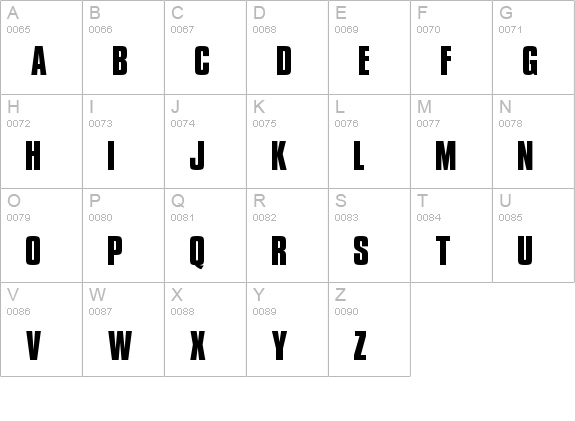
Compacta ICG Bold Font Details
Compacta ICG Bold is a strong, high-contrast variant in the Compacta typeface family \xE2\x80\x94 well suited to headlines, attention-grabbing titles, and strong calls-to-action.
Compacta ICG Bold font is a striking and modern typeface that exudes confidence and strength. Its bold and sturdy letterforms make it perfect for headlines, titles, and other attention-grabbing text. The font's compact design and sharp lines give it a contemporary and edgy feel, making it a popular choice for projects that require a bold statement. The best part about Compacta ICG Bold font is that it is available for free download at FontsMarket.com. This means you can easily access this powerful font and use it in your designs without any cost. Whether you're working on a poster, logo, or any other creative project, Compacta ICG Bold font is sure to make a bold impact and help your text stand out. Download it now and elevate your designs with this impressive typeface.